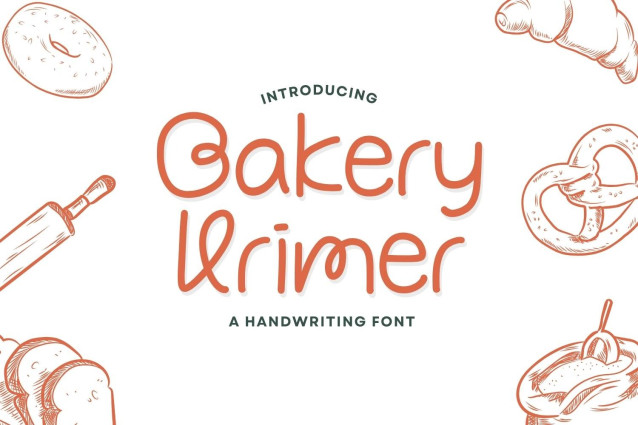
Bakery Krimer Script Font
Bakery Krimer Script Font is a simple and friendly handwritten font. Its natural and unique style makes it incredibly fitting to a large pool of designs. The only limit is your imagination!